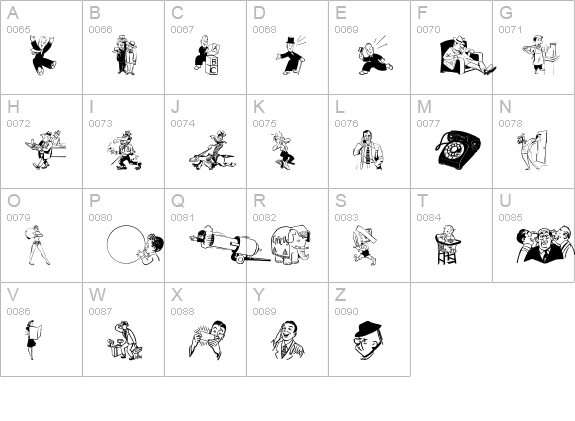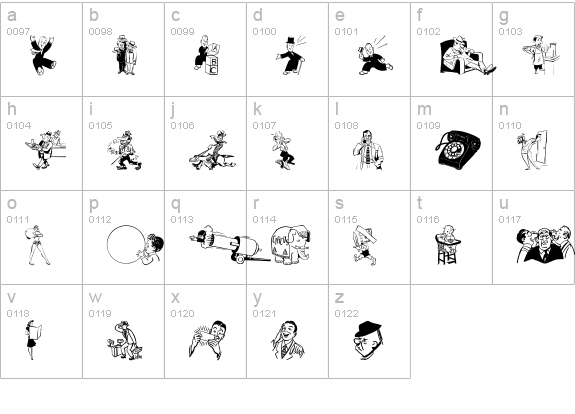
Cobb Shinn Stock Cuts II font is a unique and versatile typeface that combines vintage charm with a modern twist. This font features intricate details and decorative elements that add character and style to any design project. With its bold and eye-catching appearance, Cobb Shinn Stock Cuts II is perfect for headlines, posters, logos, and more. What sets this font apart is that it is not only visually appealing but also completely free to use. That's right, you can download Cobb Shinn Stock Cuts II for free at FontsMarket.com. Whether you're a designer looking to add a touch of flair to your work or a hobbyist exploring new fonts, Cobb Shinn Stock Cuts II is a fantastic choice that won't break the bank. Don't miss out on this opportunity to enhance your creative projects with this stunning font today.